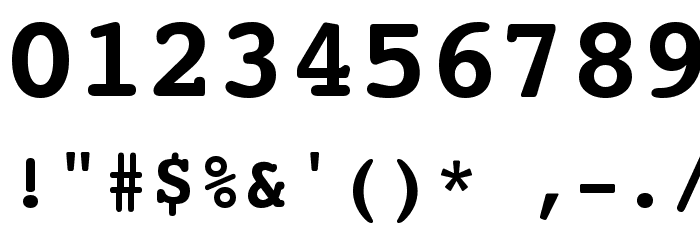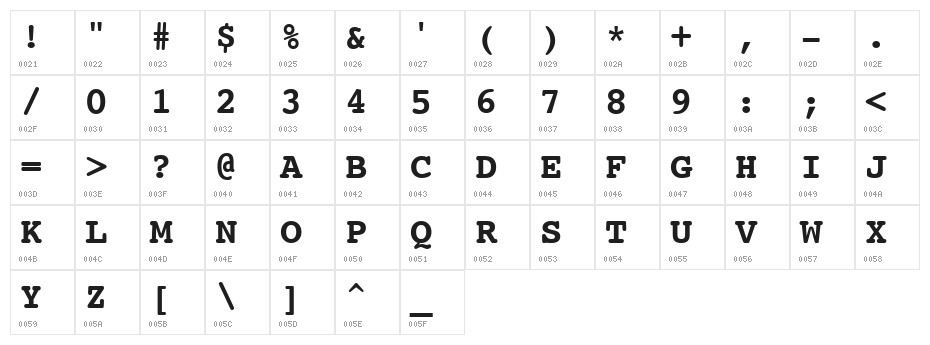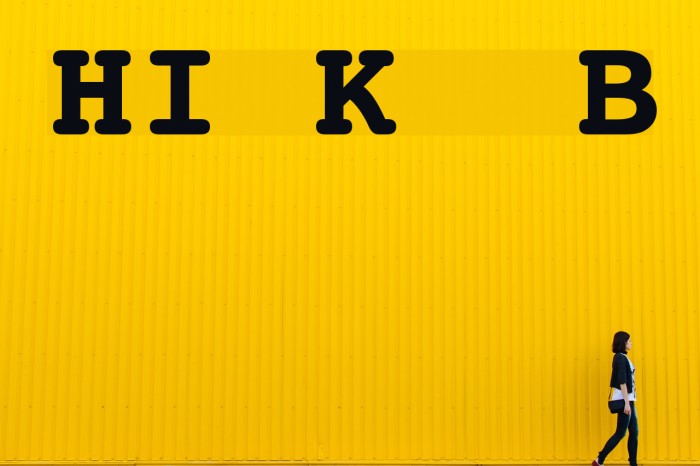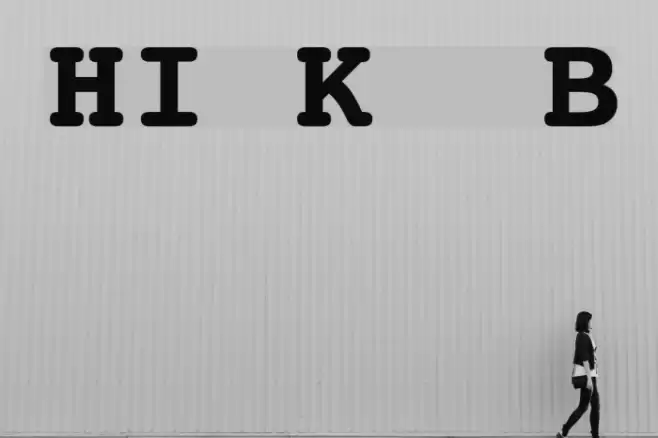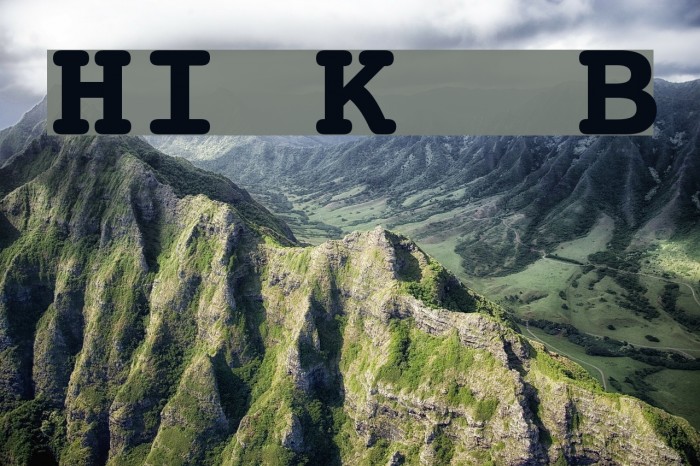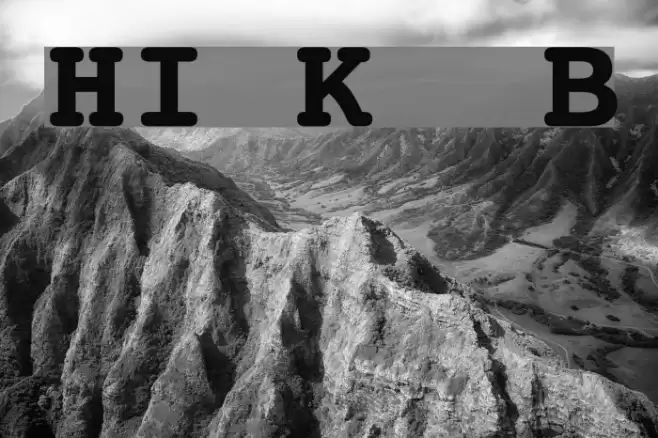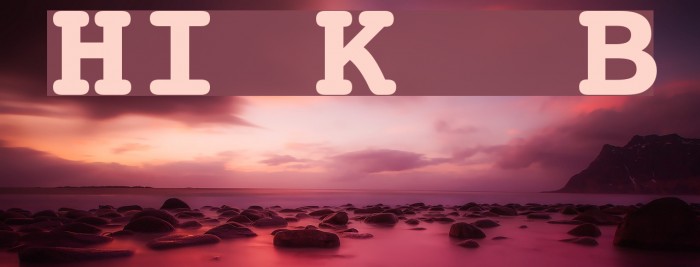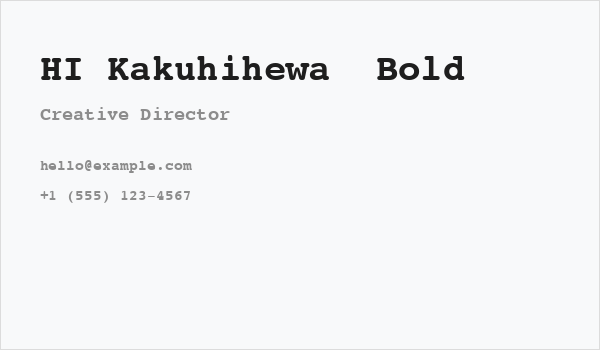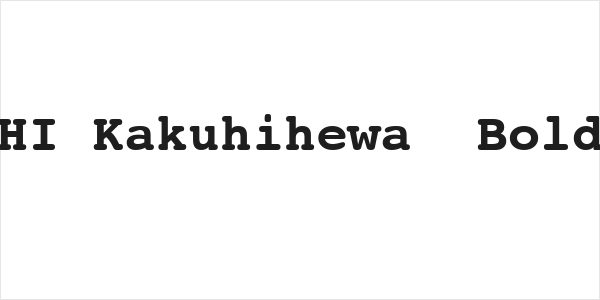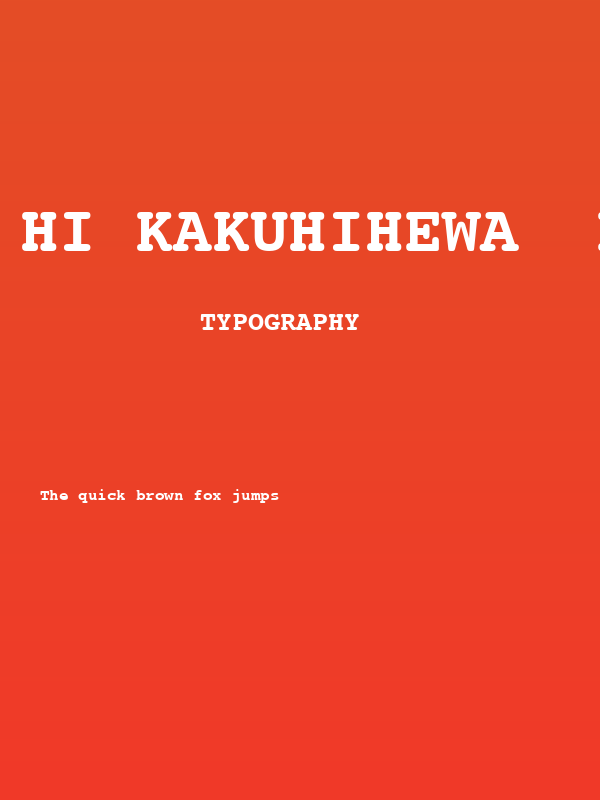
HI Kakuhihewa Bold Font
HI Kakuhihewa Bold Description
This font features a bold and robust slab serif style, characterized by thick, block-like serifs that give it a strong, authoritative presence. The uppercase letters are uniform in height, with a consistent stroke weight that enhances readability. The lowercase letters maintain a similar weight, providing a cohesive look across different text sizes. The numerals are clear and distinct, making them ideal for display purposes. Special characters are well-defined, adding versatility to the font's usage. Overall, this font combines traditional serif elements with a modern twist, making it suitable for a variety of design applications.